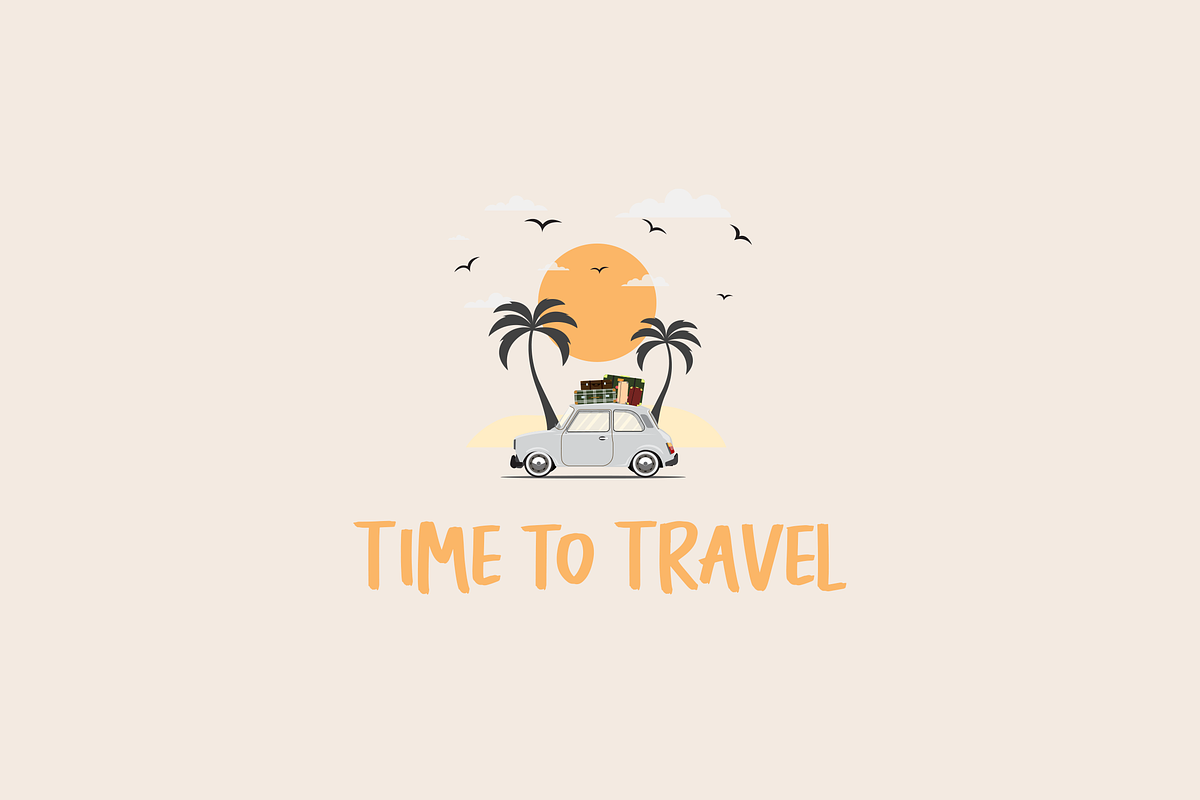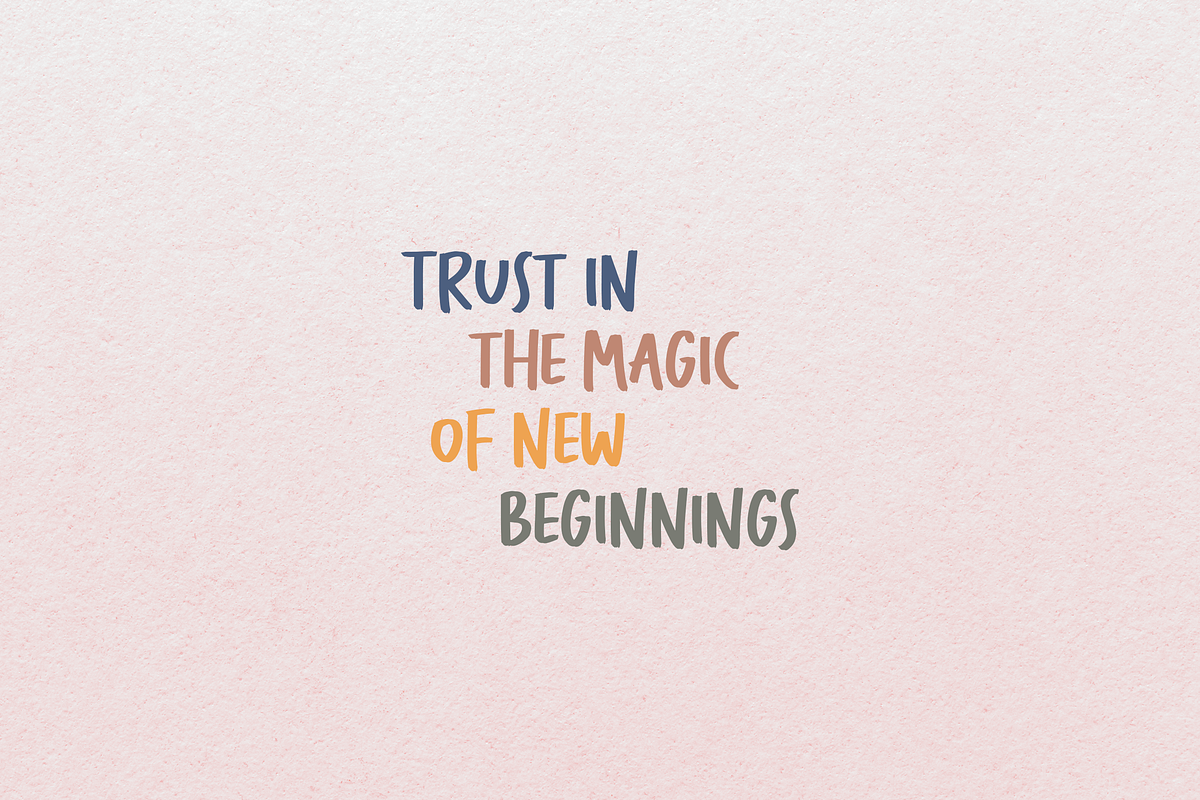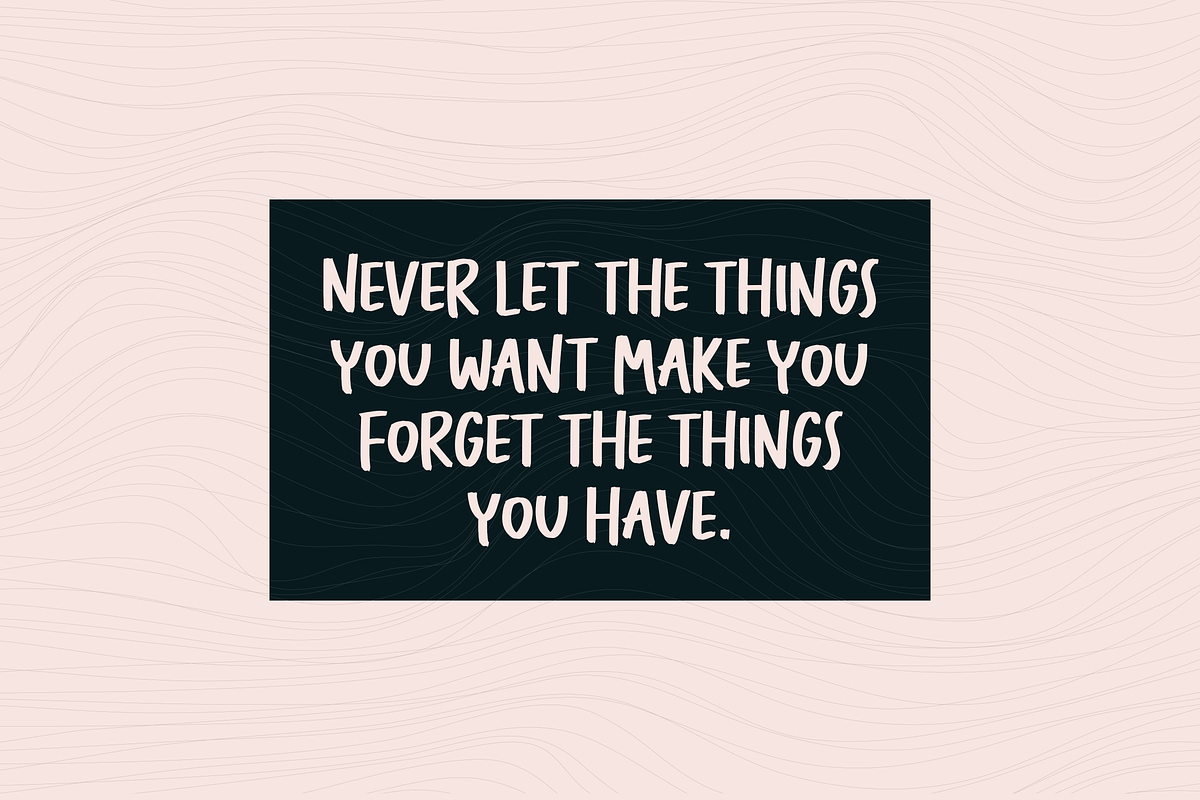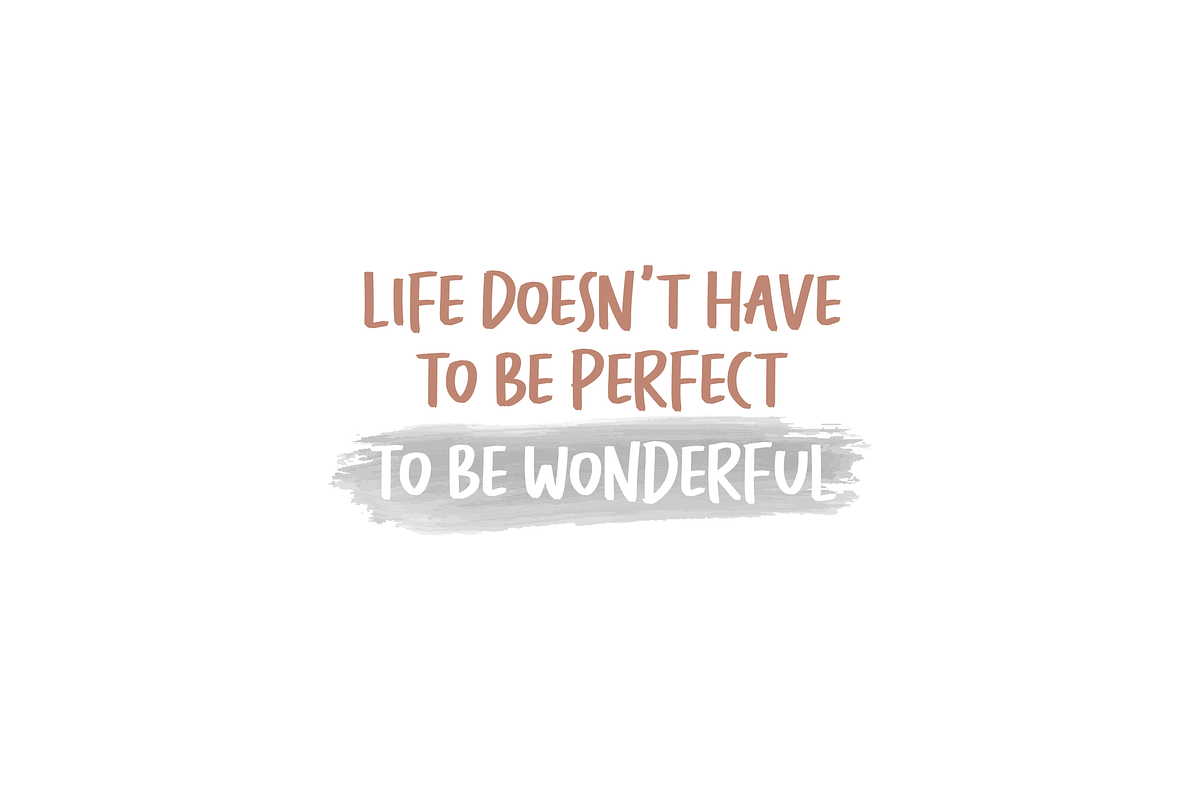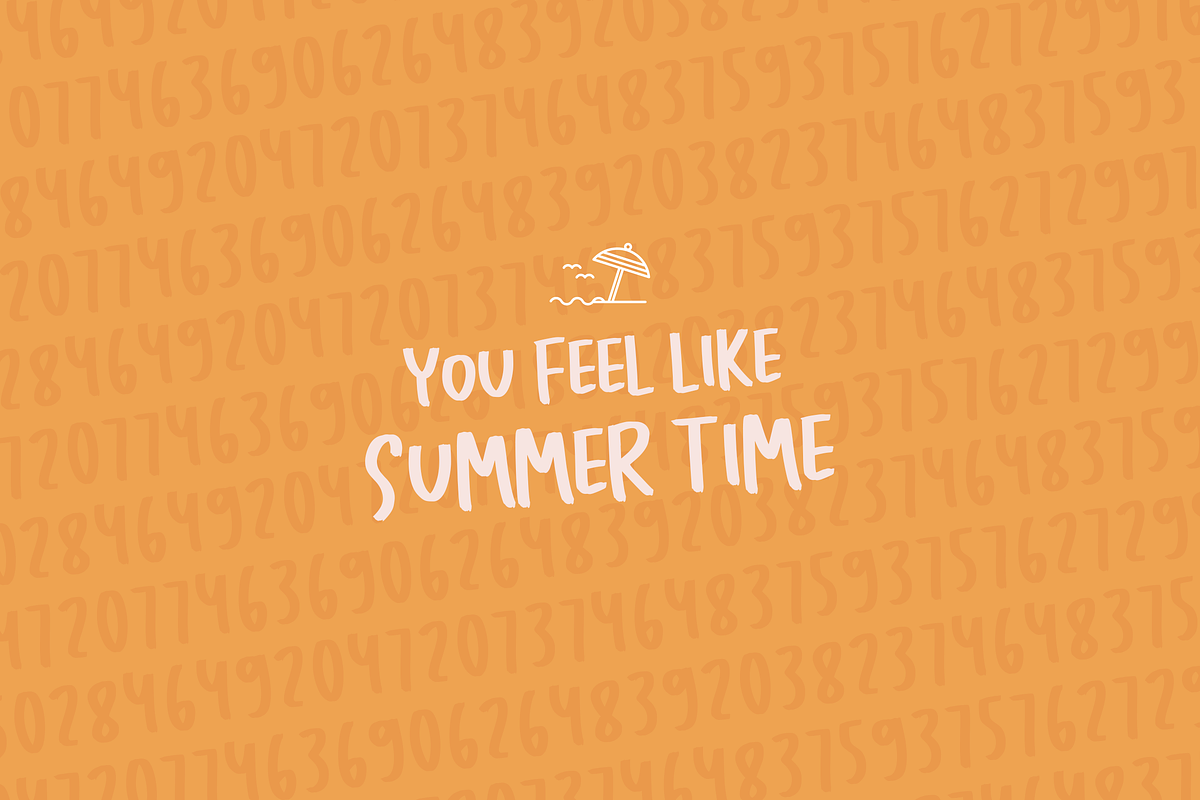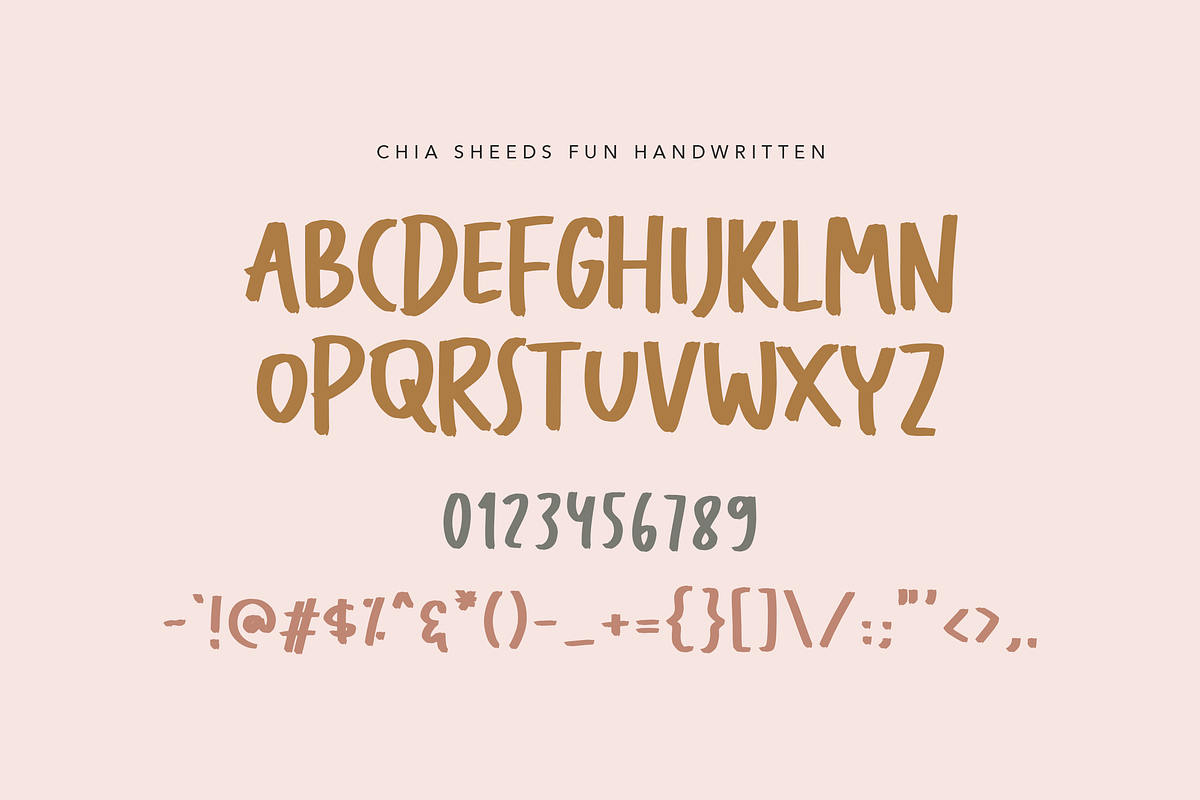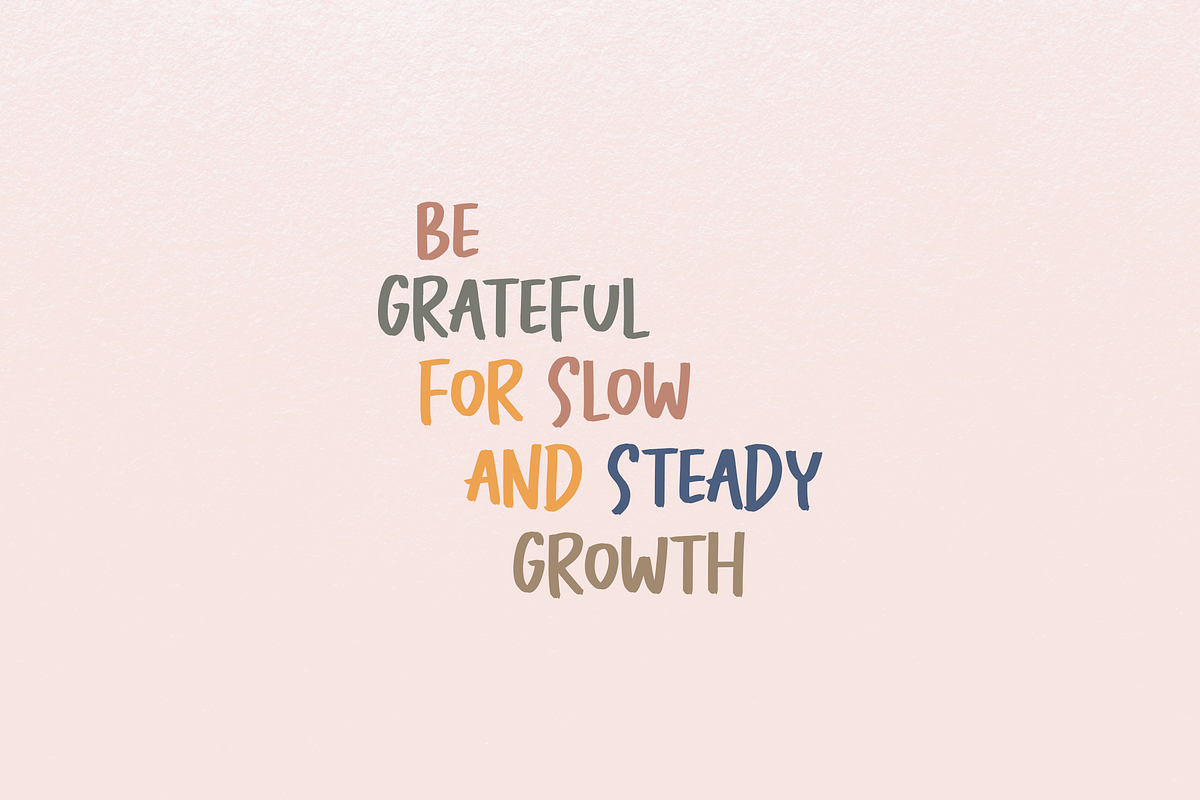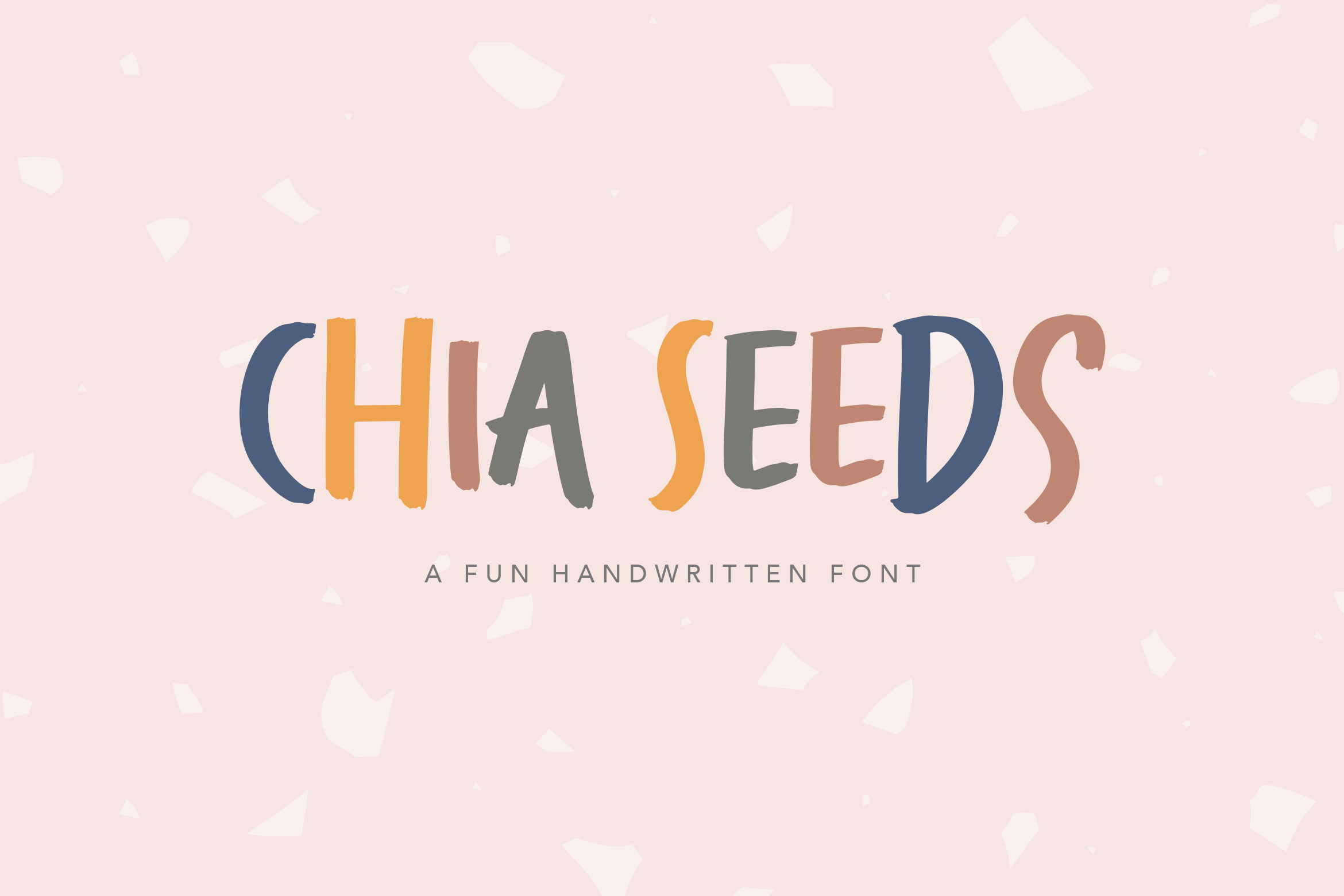
Chia Seeds Fun Handwritten Font
Feel the taste of summer in every writing you made by using Chia Seeds-a playful, cheerful and bold font. Chia Seeds Fun-Brushed Handwritten Font is perfect for citing quote, travel theme, food and nature theme or a stylish text overlay to any background image you want. Need font for children-themed text? Just pick this item to make your post or writing to be more wonderful.
Chia Seeds is available in OTF format with uppercase letter or caps lock mode only but completed with numbering 0-9 and punctuation for any regular needs. Brush your creative works in social medias, online medias or even any other printed-medias by Chia Seeds to make it more lovely and beautifully written.
- Font type with fun, playful, and bold character.
- All Caps Letters